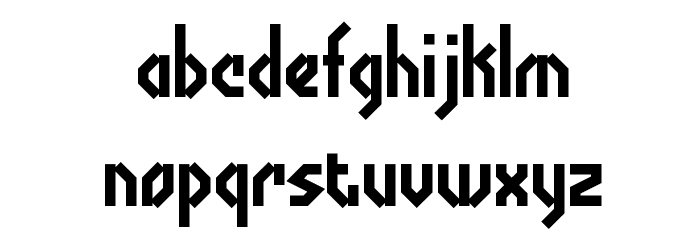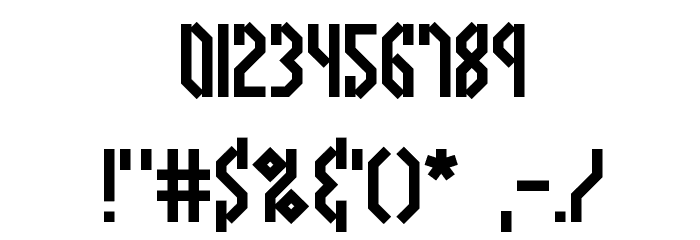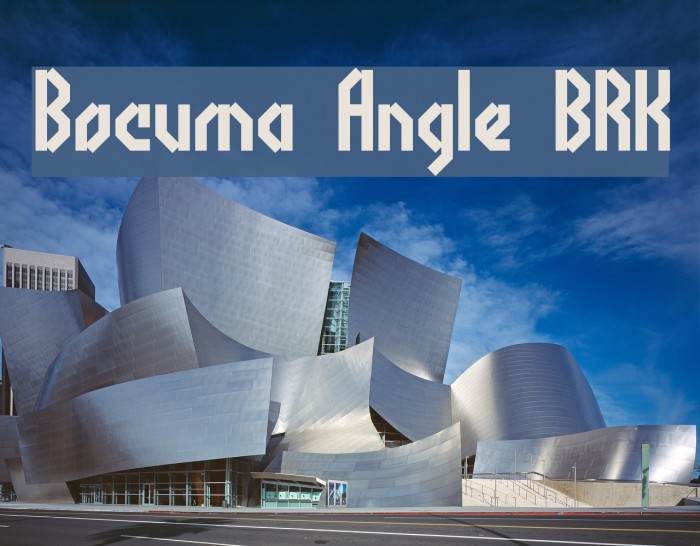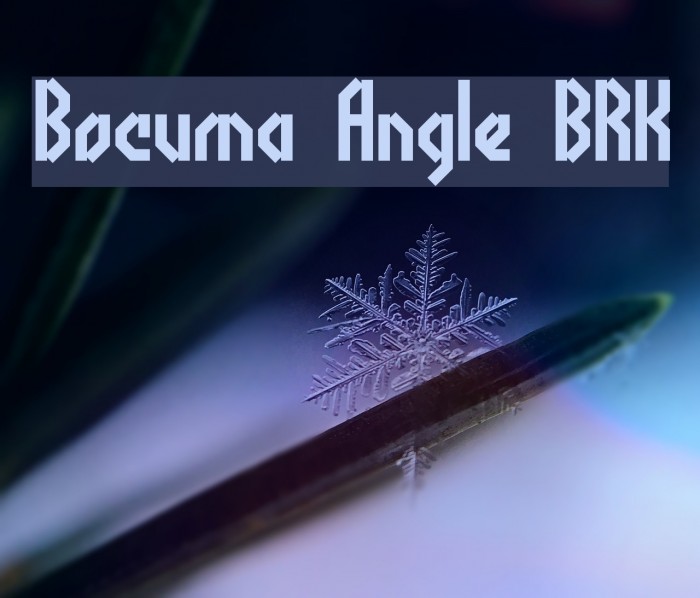
Bocuma Angle BRK Font
This font features a bold and angular design, characterized by sharp edges and geometric shapes. The uppercase and lowercase letters maintain a consistent style, with a strong emphasis on vertical and diagonal lines. The numerals and special characters follow the same angular theme, creating a cohesive and striking appearance. The font's unique style makes it stand out, offering a modern and edgy look that is both eye-catching and memorable. Its boldness and distinctiveness make it suitable for projects that require a strong visual impact.
A bold, angular font with sharp edges and geometric shapes.
- Proposed Projects: Ideal for branding, posters, album covers, and any design requiring a modern, edgy look.